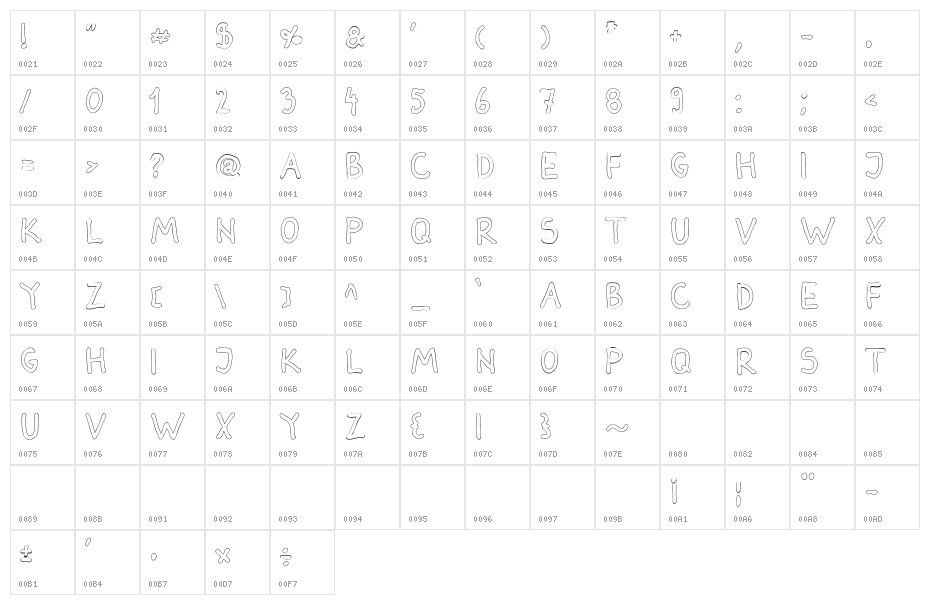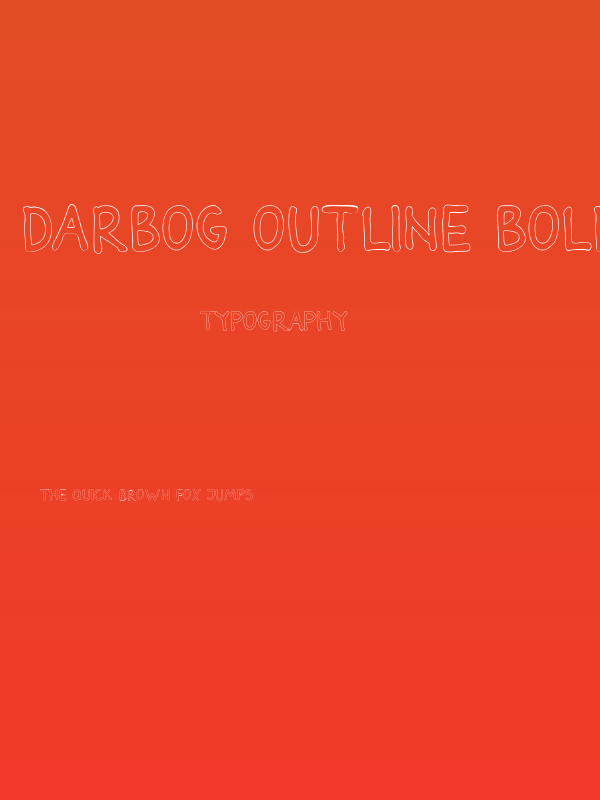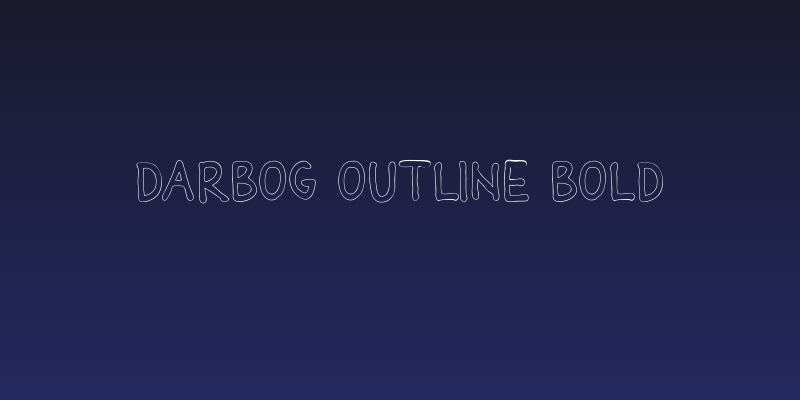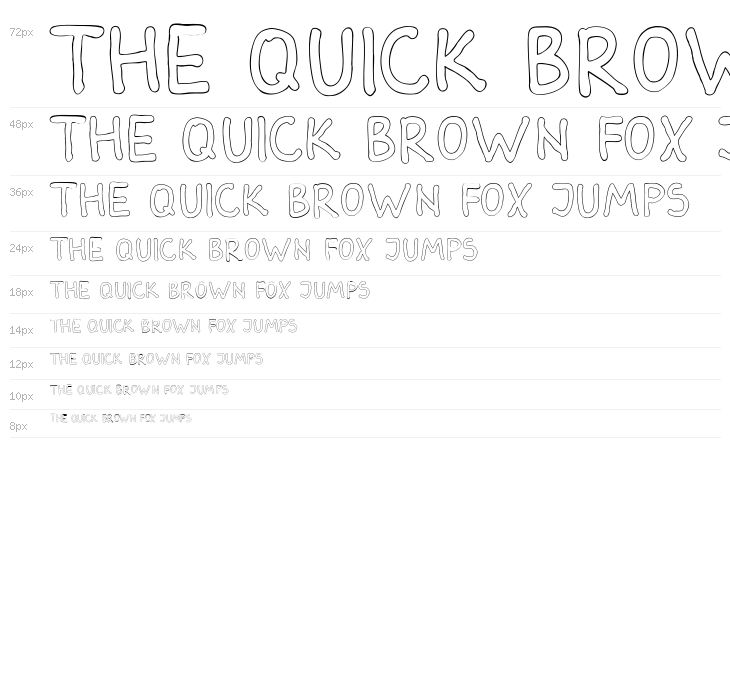
Darbog outline Bold Font
Darbog outline Bold Description
This font features a playful and bold outline style, giving it a unique and eye-catching appearance. The characters are rounded and slightly irregular, adding a whimsical and informal touch. The outline design creates a hollow effect, making it ideal for creative projects where a fun and engaging look is desired. The uppercase and lowercase letters maintain a consistent style, with numbers and special characters following the same design principles. This font is perfect for projects that require a standout, artistic flair.
| Proposed Projects | Ideal for children's book covers, playful posters, creative branding, and eye-catching headlines. |